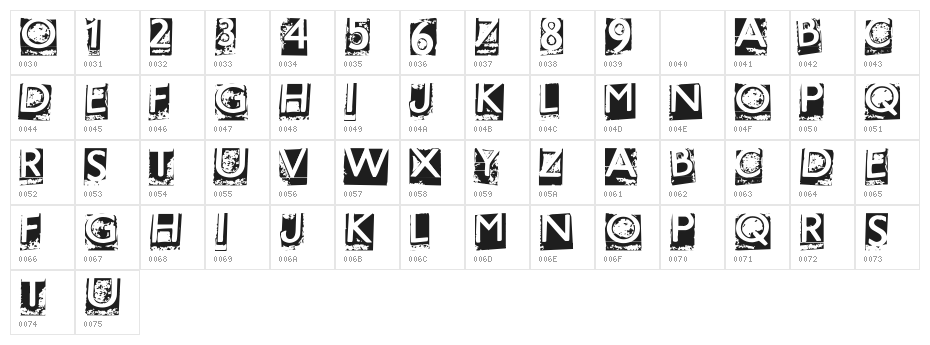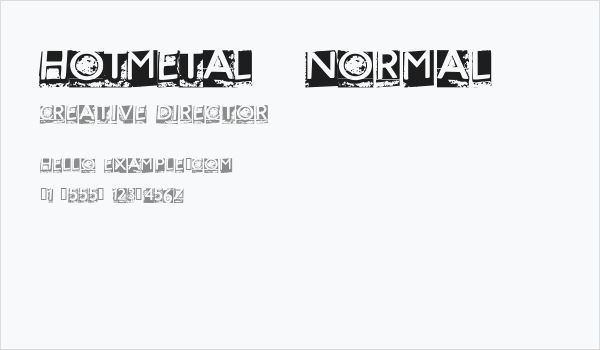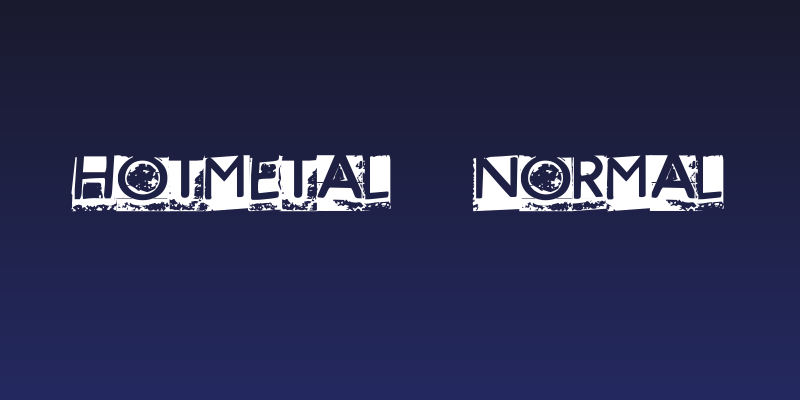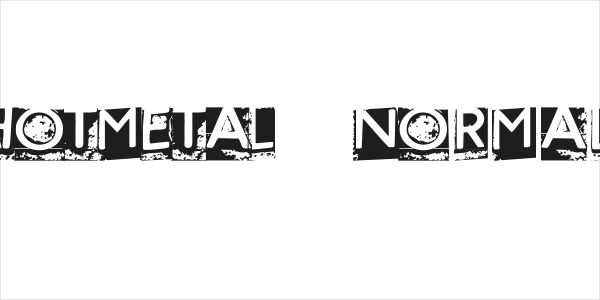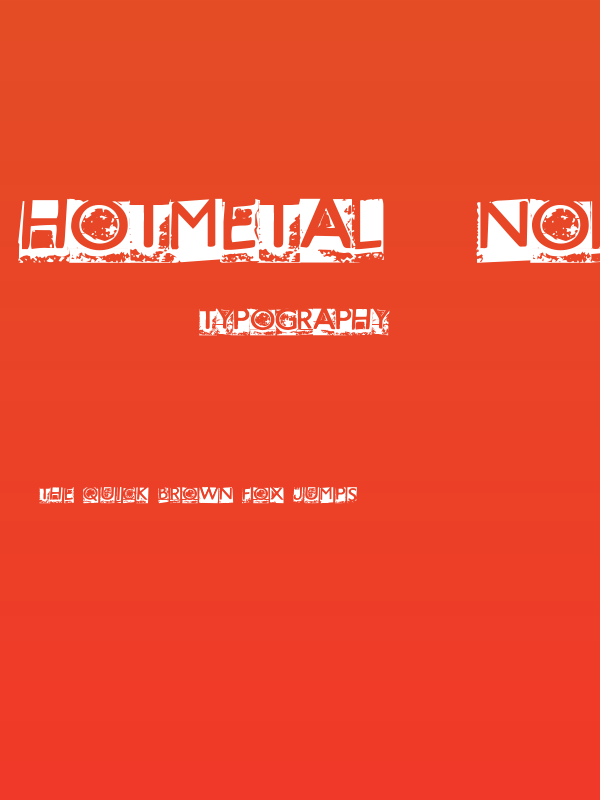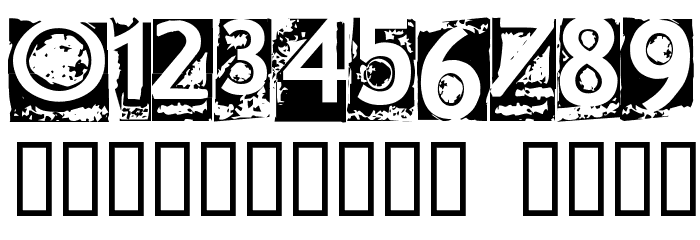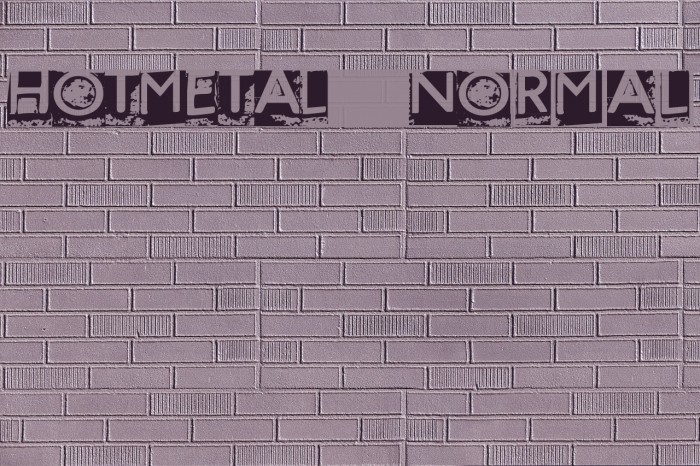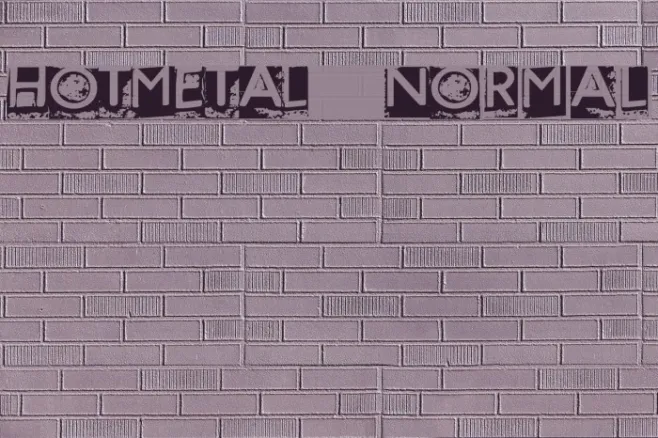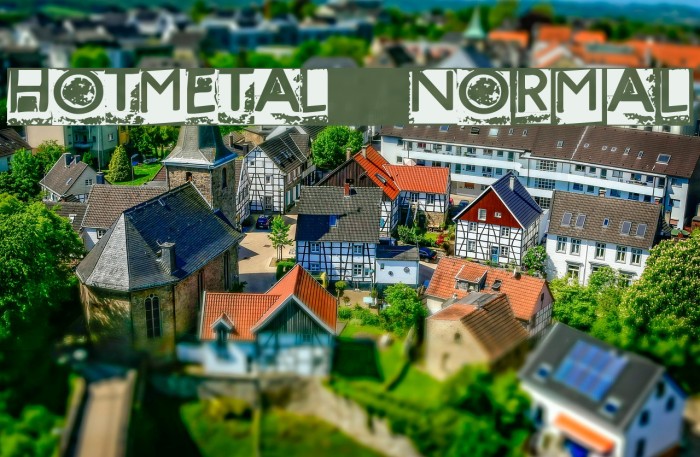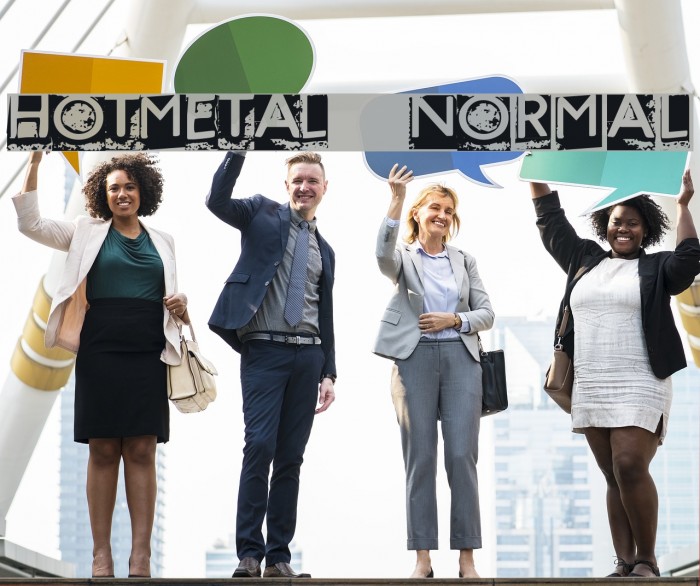
HOTMETAL Normal Font
HOTMETAL Normal Description
This font features a bold and distressed style, reminiscent of industrial or grunge aesthetics. Each character is encased in a rough, textured block, giving it a rugged and worn appearance. The uppercase letters are prominent, with a strong presence, while the lowercase letters maintain the same distressed style, ensuring consistency throughout. The numbers and special characters follow suit, providing a cohesive look across all elements. The font's unique design makes it stand out, ideal for projects that require a bold statement or an edgy, urban feel.
| Overall Style | Grunge, Industrial |
| Proposed Projects | Ideal for music album covers, posters, urban-themed branding, and edgy graphic designs. |